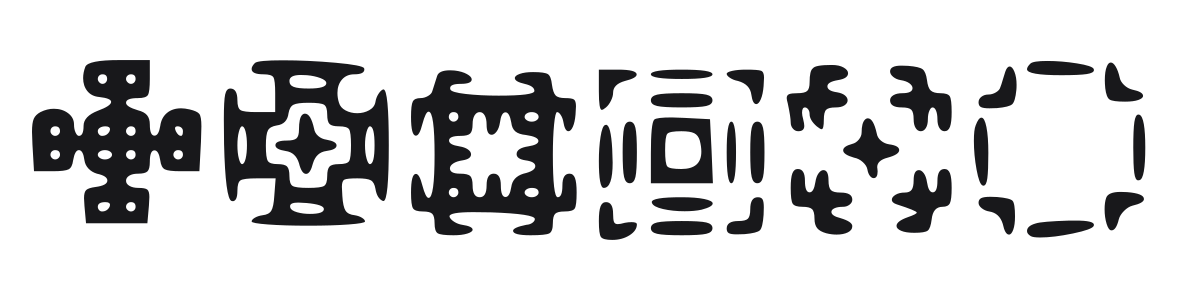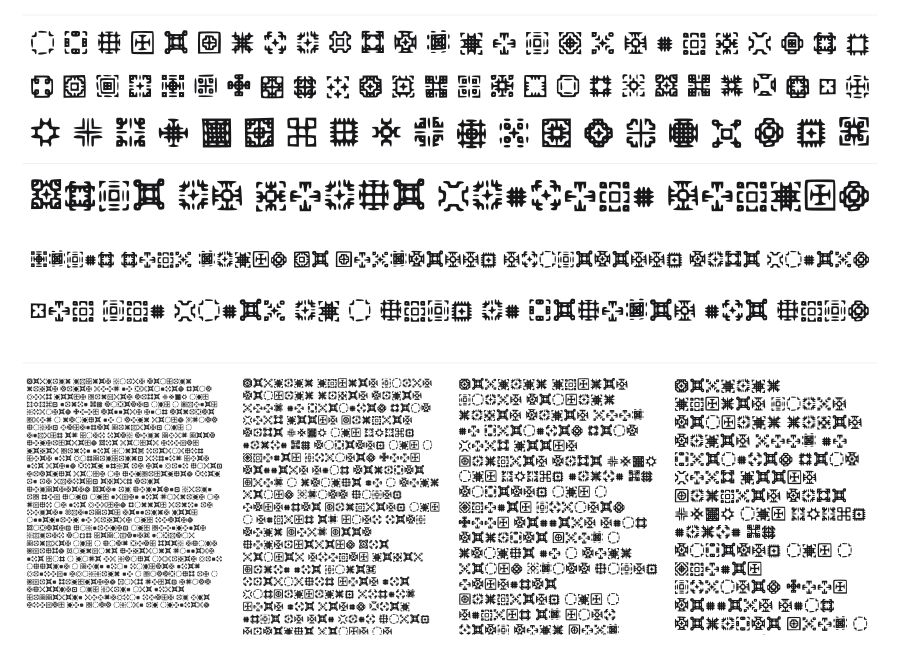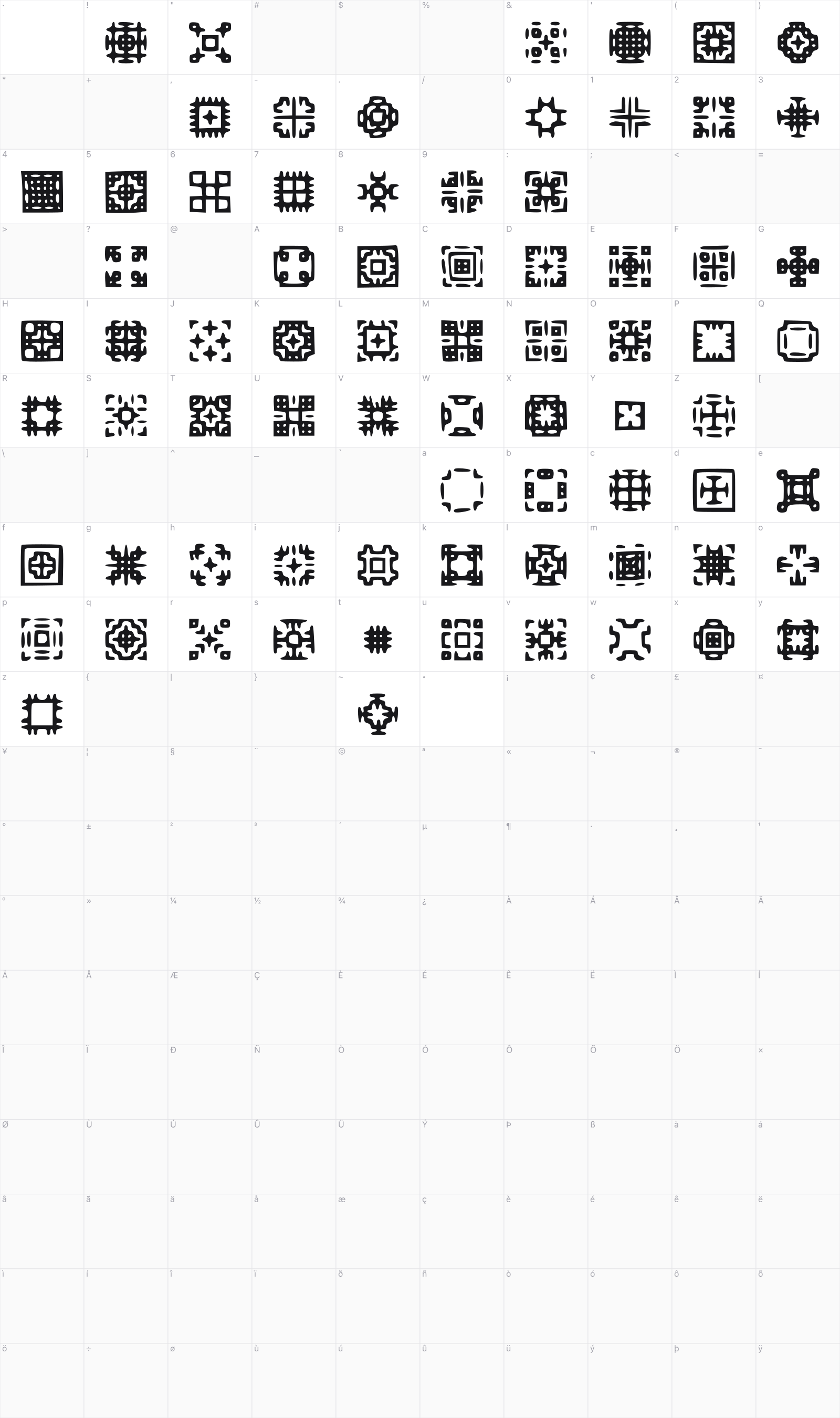
Glypha
by Wik Walker
Glypha is a dingbat font made up of bold, square-framed geometric symbols with intricate interior patterning. Each character is a self-contained tile: crosses, grids, starbursts, and dotted borders combine into dense stamp-like forms. The result is a toolkit for building decorative patterns, borders, or textural accents.